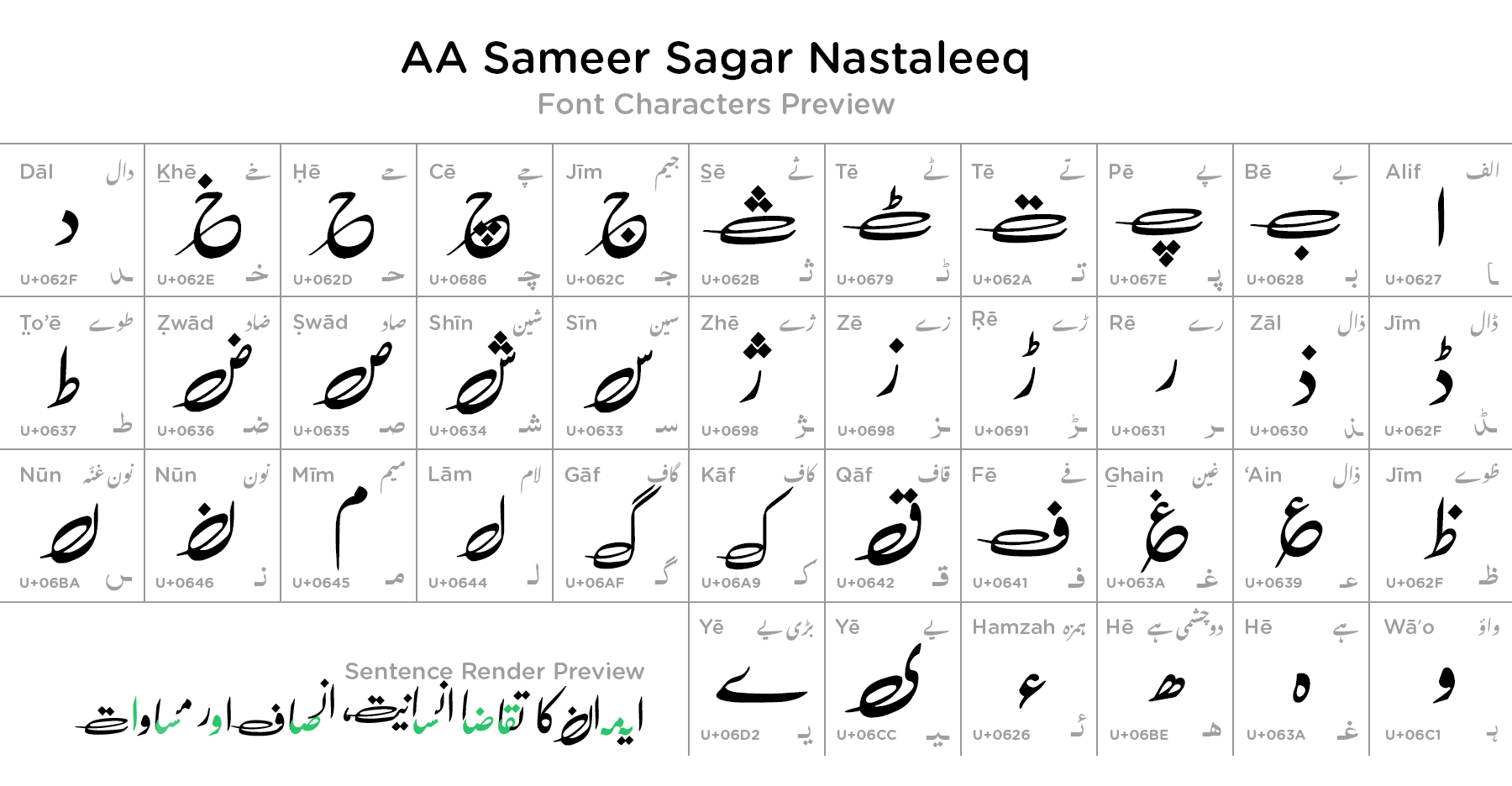
AA Sameer Sagar Nastaleeq is a slanted decorative Urdu font released on January 30, 2016, as part of the AA Sameer font family. Inspired by the Nastaliq script with influences from Divani, it represents elegance with thick and elegant letters featuring even spacing, rounded corners, and long curly edges swirling inwards. With 143 characters and 1001 glyphs, the font supports Urdu, Persian, Arabic, and Latin languages, making it versatile for various design projects. Its changing thickness and contrasting yet strong strokes remind us of those made by a Qalam and add depth to its calligraphic appearance.